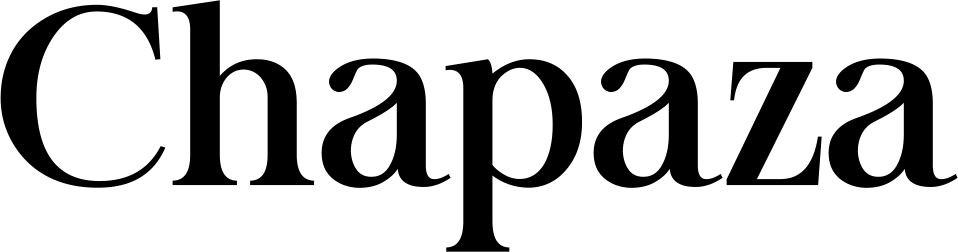
Chapaza Font
Desiring to give authentic and established vibes to your writing project, never undervalue this professional serif font; Chapaza, with two different versions, is in stock to bring a satisfactory outcome to your writing design with its sophisticated, edgy end design on letterforms.
Chapaza and Chapaza Italic were inspired by the work of master penman, Charles Paxton Zaner.